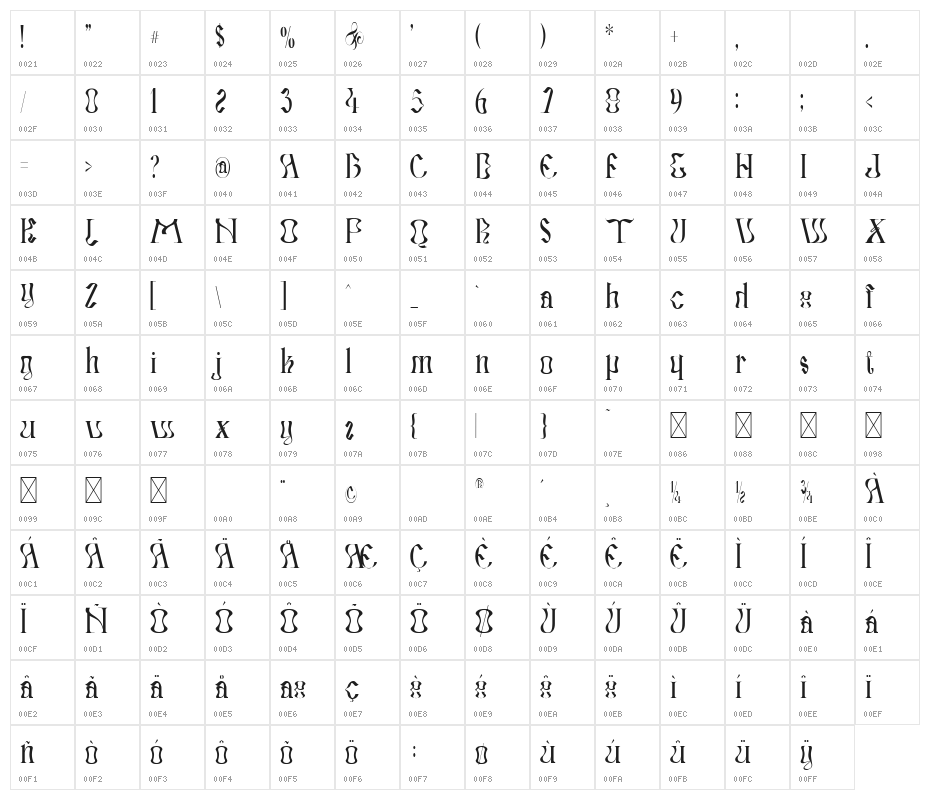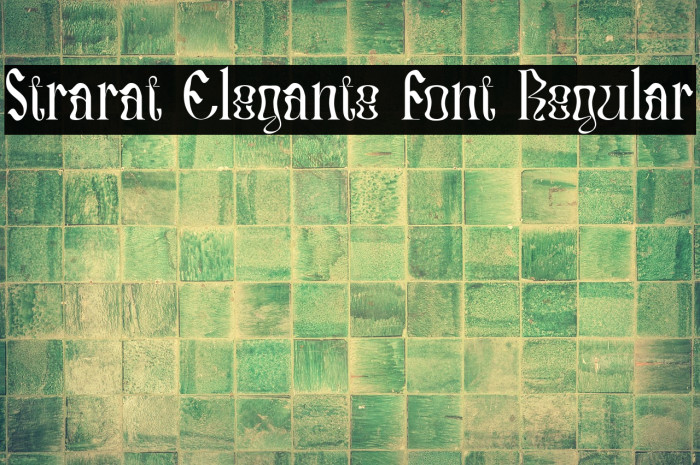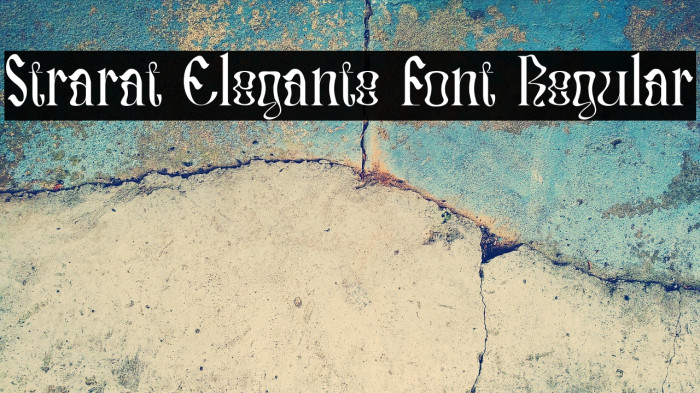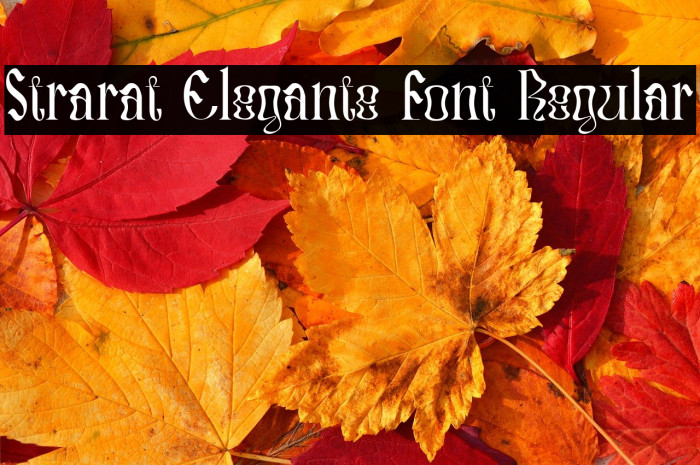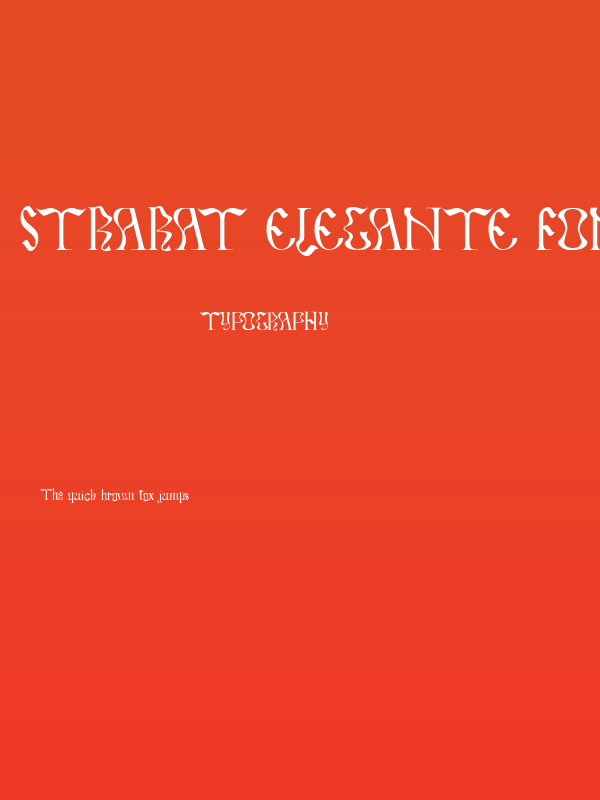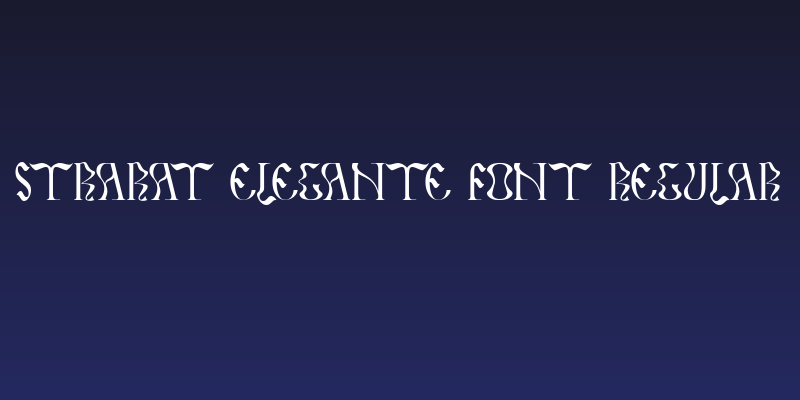
Strarat Elegante Font Regular Font
Strarat Elegante Font Regular Description
This font features an elegant and artistic design, characterized by its intricate and decorative letterforms. The uppercase letters exhibit a unique blend of sharp angles and smooth curves, creating a striking visual contrast. The lowercase letters maintain a similar style, with some characters featuring distinctive flourishes and swashes. The numerals are equally ornate, with a consistent design that complements the alphabet. Special characters are thoughtfully crafted, adding to the overall aesthetic appeal. This font's high contrast in stroke thickness enhances its decorative nature, making it suitable for projects that require a touch of sophistication and flair.
| Proposed Projects | Ideal for wedding invitations, luxury branding, editorial design, and artistic posters. |